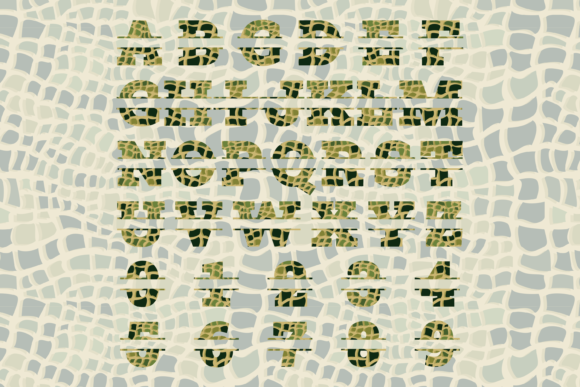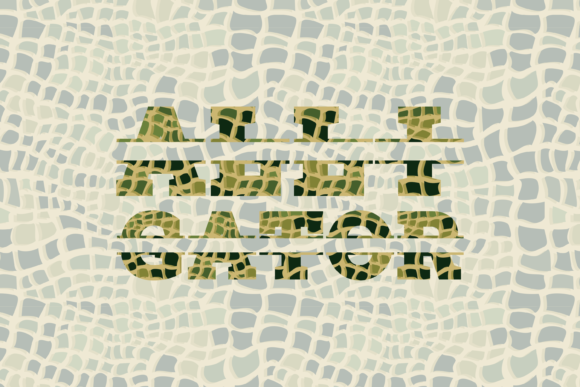
About Alligator Split Font
Alligator Split sounds like a fantastic font that features cute alligator-themed elements. Its cool and adorable design makes it a great choice for a variety of creative projects. Here are some key features and potential uses for Alligator Split:
1. Alligator-Themed Design: Alligator Split incorporates charming alligator elements throughout the font. These playful details can add a unique and whimsical touch to your designs.
2. Customizable and Versatile: The font is highly customizable, allowing you to easily incorporate it into various projects. Whether you’re working on custom designs, DIY crafts, branding materials, or any other creative endeavor, Alligator Split can enhance your creations with its captivating style.
3. Eye-Catching Appeal: The cool and cute design of Alligator Split is sure to capture attention. Its unique alligator elements make it stand out and create a memorable visual impact.
4. Creative Applications: Alligator Split can be used in a wide range of applications. From digital designs to print materials, such as invitations, posters, merchandise, and more, this font offers versatility and adds a lovely touch to any project.